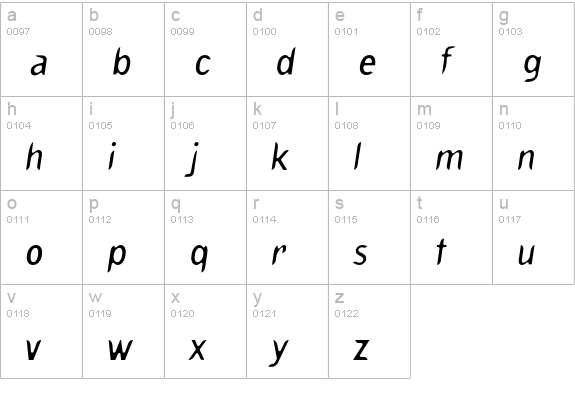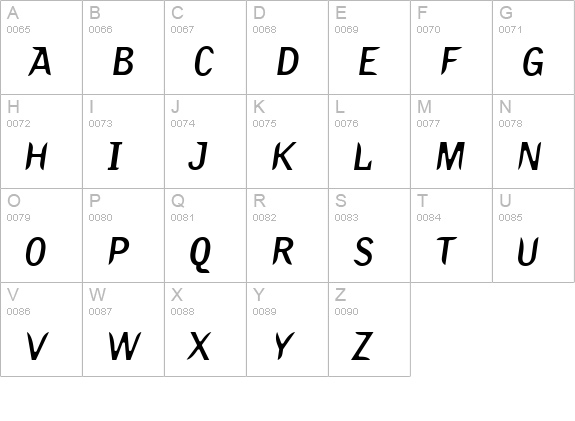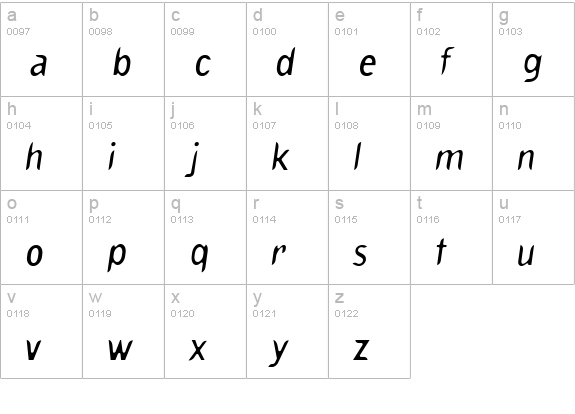
Introducing the captivating Truth-NormalSlanted font, a stunning typeface that expertly combines modern aesthetics with a touch of elegance. This font effortlessly captures attention with its sleek lines and unique slanted design, making it the perfect choice for any project that requires a bold yet sophisticated look. Truth-NormalSlanted font's versatility knows no bounds, as it is suitable for a wide range of design applications, including branding, advertising, packaging, and much more. Its carefully crafted letterforms exude a sense of confidence and professionalism, making it a go-to option for designers and creatives alike. One of the most remarkable features of Truth-NormalSlanted font is its ability to effortlessly convey a sense of authenticity and originality. Each character is meticulously designed to maintain a harmonious balance between legibility and visual appeal, ensuring a seamless reading experience for your audience. But what truly sets Truth-NormalSlanted font apart is its accessibility. This remarkable typeface is freely available to download at FontsMarket.com, allowing designers from all walks of life to harness its full potential without any barriers. With just a few clicks, you can unlock the power of Truth-NormalSlanted font and elevate your design projects to new heights. So whether you're looking to add a touch of sophistication to your branding materials or want to make a statement with your advertising campaigns, Truth-NormalSlanted font is the ultimate choice. Its captivating aesthetic, combined with its availability as a free download, makes it a must-have in every designer's toolkit. Don't miss out on this incredible opportunity to elevate your design projects and leave a lasting impression. Download Truth-NormalSlanted font today and let your creativity soar.